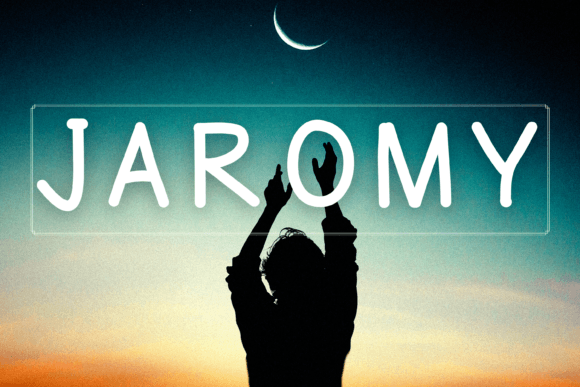
Adorn your designs with the enchanting Jaromy font, a handwritten masterpiece crafted by the talented PJ Fonttein. This charming script font exudes a warm and inviting personality, instantly captivating your audience. Its authentic and lifelike appearance adds a touch of realism, making your designs feel personal and genuine.
Picture your wedding invitation adorned with the flowing strokes of Jaromy, each letter meticulously handwritten to convey a heartfelt message. Your guests will be swept away by the elegant simplicity of this font, setting the tone for a memorable celebration.
Unleash your creativity with Jaromy, a font that seamlessly blends playfulness and sophistication. Its whimsical charm lends itself beautifully to teaching materials, capturing the attention of young minds. Create engaging worksheets, colorful posters, and interactive presentations that ignite a love for learning.
With Jaromy as your creative companion, the possibilities are endless. Dive into the world of personalized gifts, transforming ordinary objects into sentimental keepsakes. Design mugs, T-shirts, and home décor items that showcase your loved ones' names in a unique and heartwarming way.